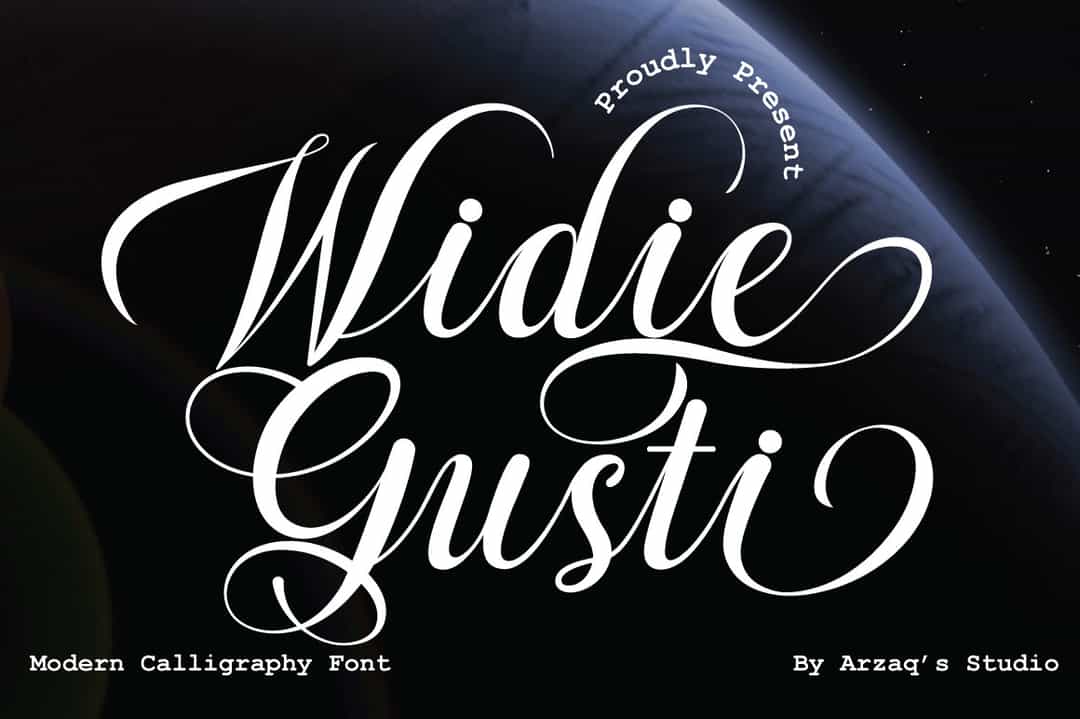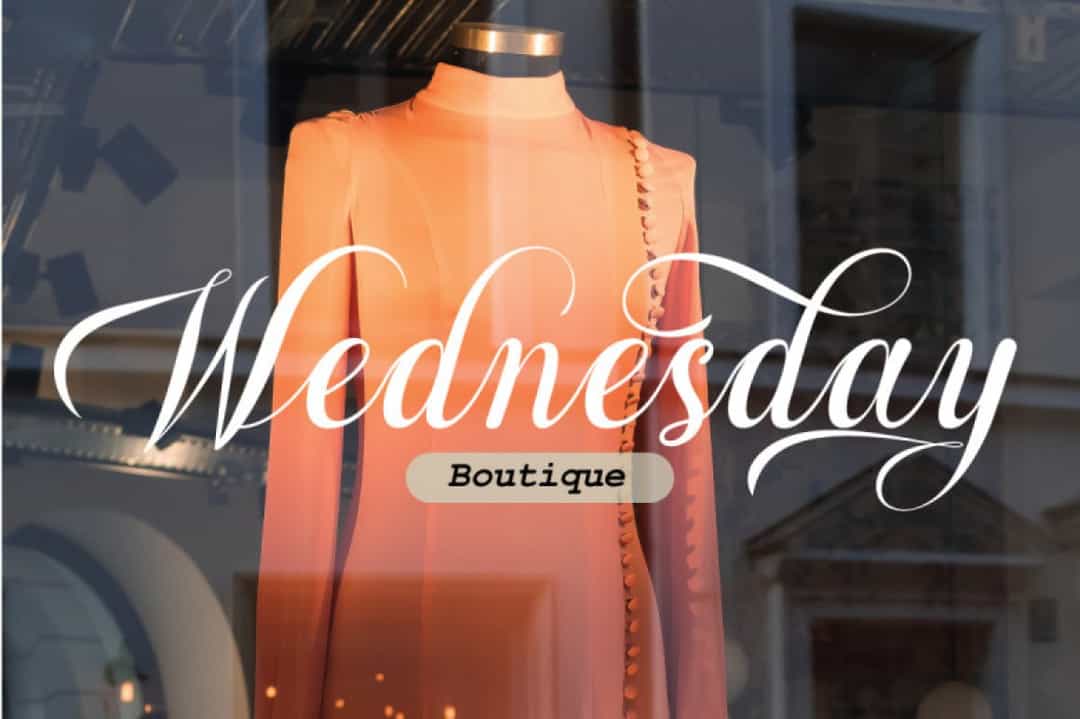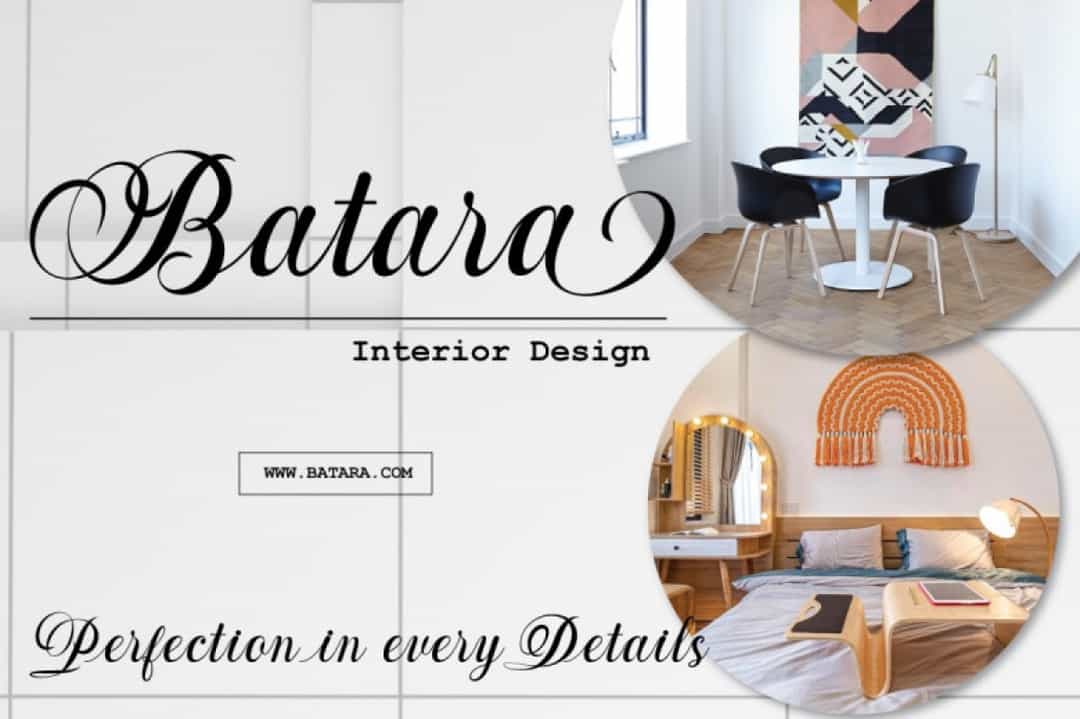
Widie Gusti is an elegant and contemporary typeface perfect for writing. Ideal for wedding invitations branding, logos invitations stationery wedding designs branding apparel it will charm you! Use its timeless yet distinctive style to craft beautiful designs!